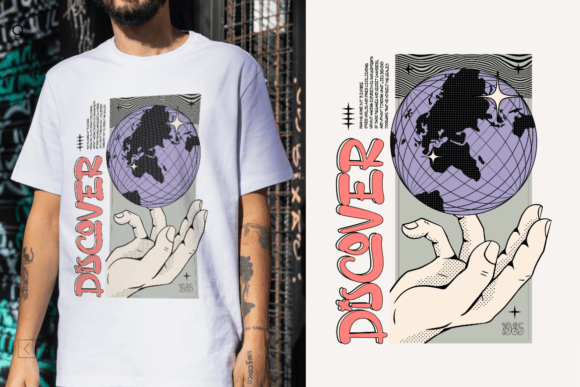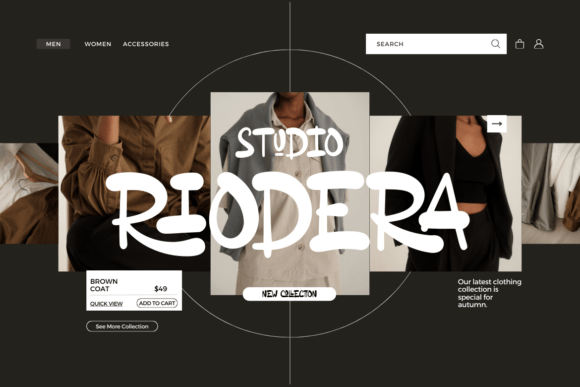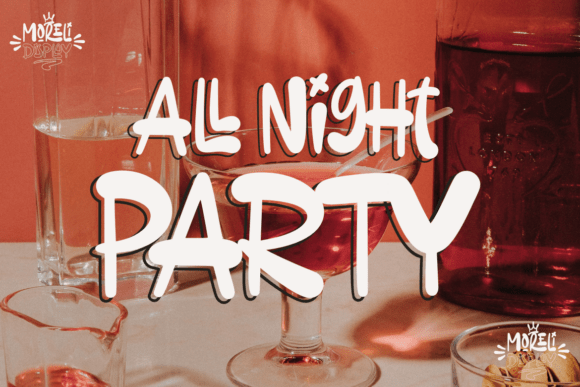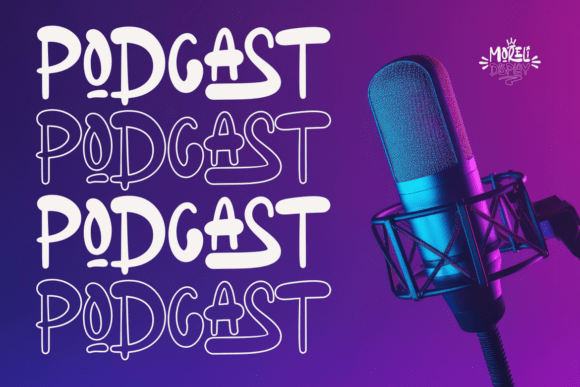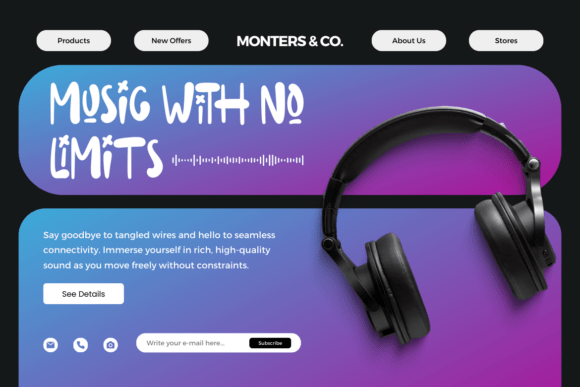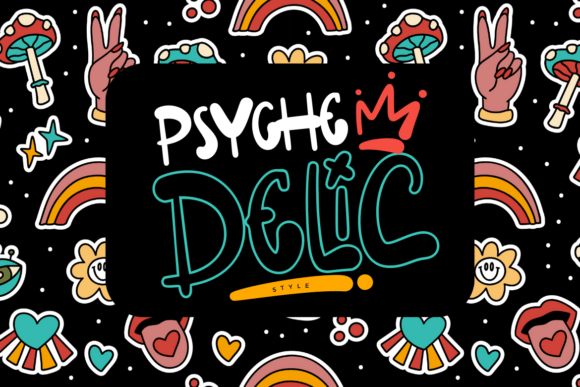
Introduction to Moreli Font
Moreli is a wonderful typeface designed to bring a spirit of psychedelia to your projects.
With mixable uppercase and lowercase versions, ligatures, alternates, and outlines version, offers unmatched versatility for psychedelic theme design projects, apparel, branding, promotional materials, stickers, quotes, and social media posts Let your creativity flow and embark on a captivating and transformative visual journey.
Moreli Font offers exceptional quality and versatility, making it a valuable addition to your design toolkit. Whether you’re creating for personal projects or commercial use, Moreli Font delivers professional results.